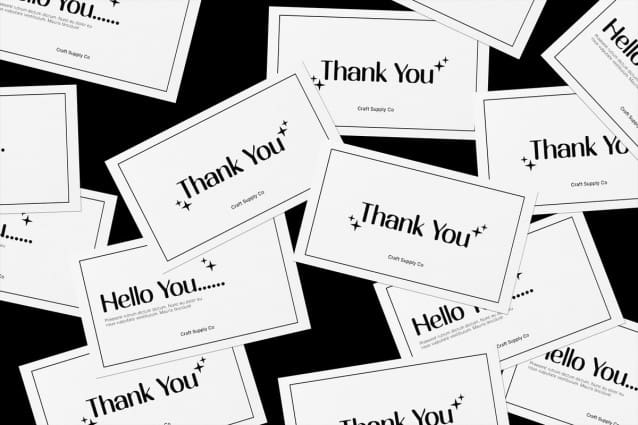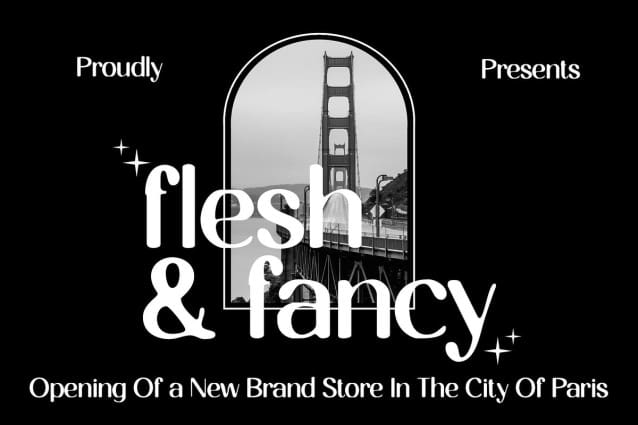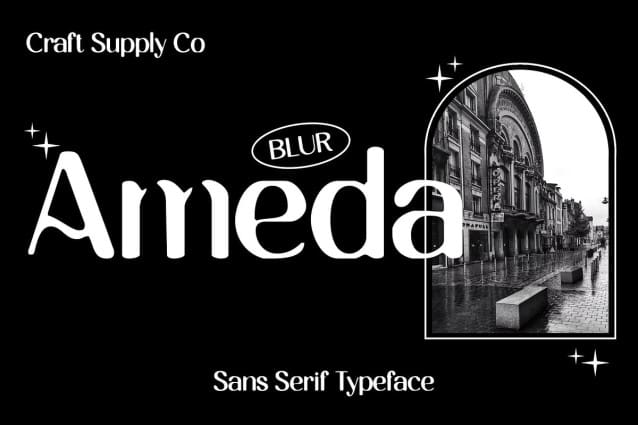
Ameda Blur Font
Ameda Blur Font: Evoking Ink Splatter Elegance. High Contrast Sans Serif Ameda Blur presents a high contrast sans serif design, capturing attention with its bold strokes and striking appearance.
Blur Effect The font is enhanced with a blur effect, reminiscent of ink splatter, adding a sense of fluidity and motion to each character.
Ink Splatter Elegance With its blur effect, This font exudes an elegant yet dynamic aesthetic, resembling the organic flow of ink on paper. This unique feature sets it apart from traditional sans serif fonts, infusing it with personality and character.
Versatile Application Despite its distinctive appearance, This font is versatile in its application, suitable for a wide range of design projects including branding, headlines, and editorial layouts. Its ability to convey both sophistication and playfulness makes it a valuable asset for designers seeking to make a statement.
Dynamic Elegance with Ink Splatter Inspiration This font combines the sophistication of a high contrast sans serif with the fluidity of ink splatter, resulting in a font that is both striking and versatile. Whether used for bold headlines or subtle accents, Ameda Blur adds a touch of dynamic elegance to any design, making it a standout choice for designers looking to infuse their projects with creativity and flair.